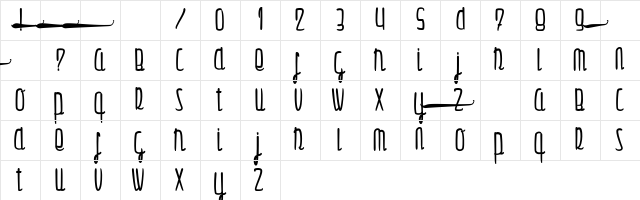
Gulliver Regular
Foundry: M.K.V
Designer: M.K.V
Gulliver Family
Design Context for Gulliver
Gulliver is a composed and adaptable typeface that performs quietly and consistently across a wide range of design contexts.